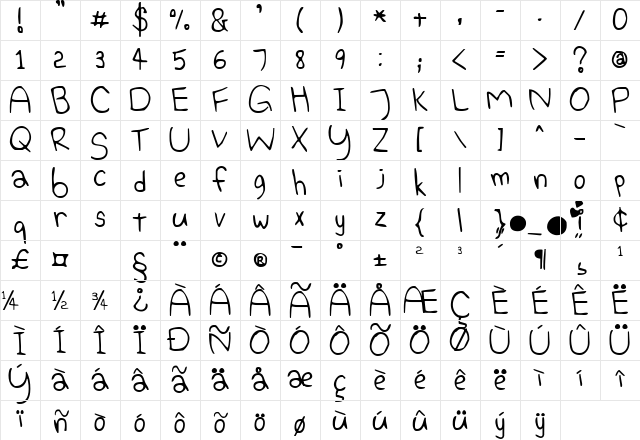
Complete KG Elephant Hiccups Regular glyph index. Displaying only characters natively supported by KG Elephant Hiccups Regular font.
KG Elephant Hiccups is a composed and adaptable typeface that performs quietly and consistently across a wide range of design contexts.